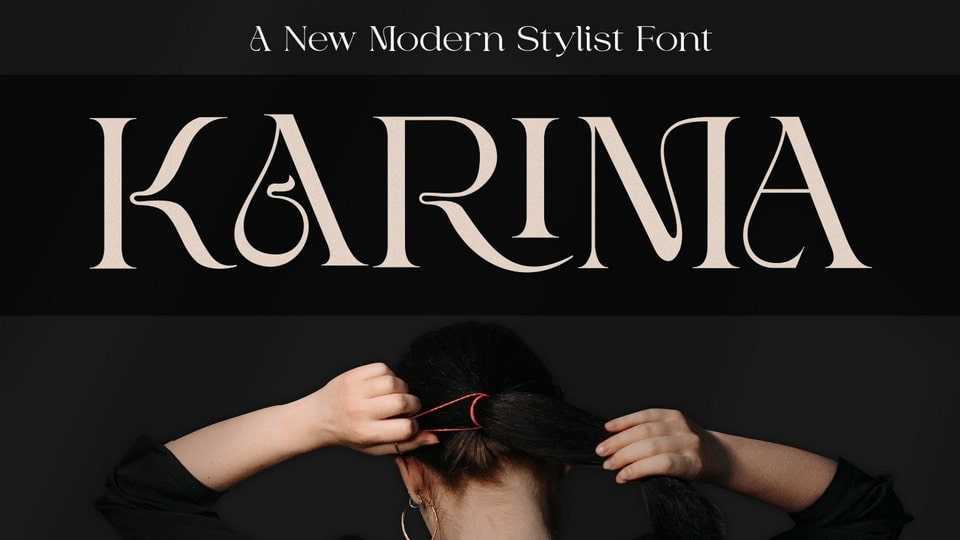
Download Karima font, a beautiful and feminine serif typeface created with a romantic and lovely look. Karima is perfect for branding identity, editorial projects, logo design, web font, clothing branding, product packaging, magazine headers, or simply as a stylish text overlay to any background image.